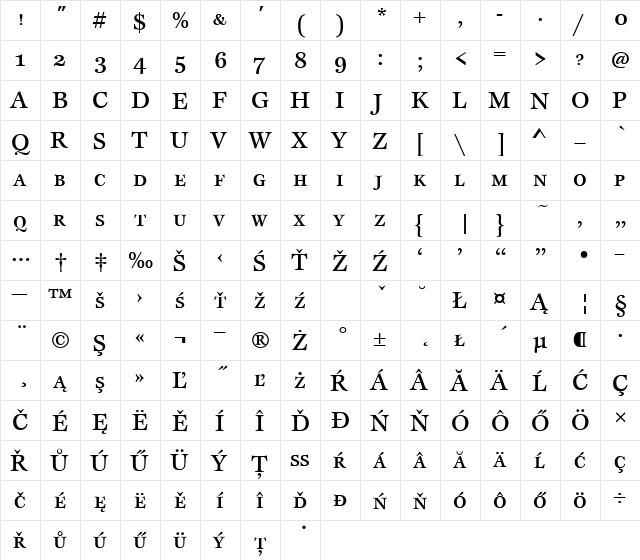
EspriItcSCTEEMed Regular
Design Context for EspriItcSCTEEMed Typeface
EspriItcSCTEEMed offers clean, dependable letterforms without strong stylistic allegiance, making it a practical choice for designers who need flexibility.